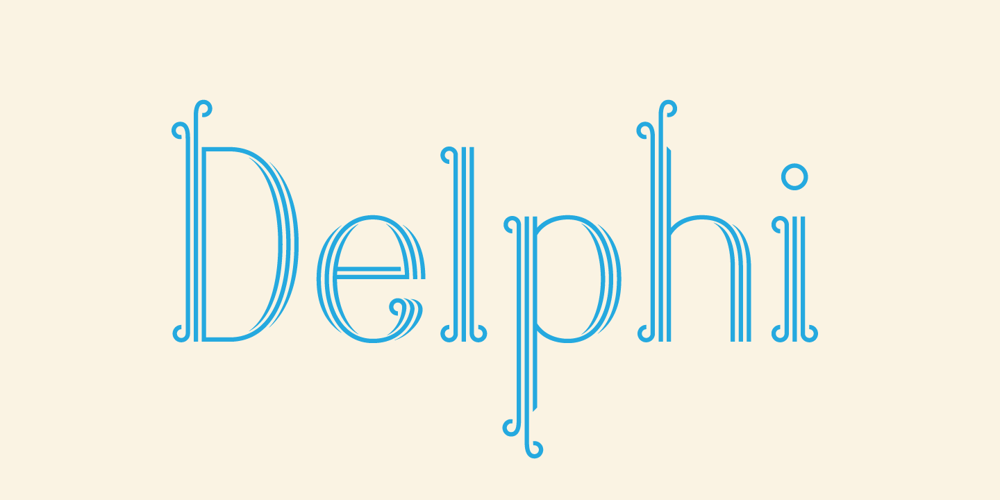
Delphi Font Family was designed by Neil Summerour, Lily Feinberg and published by Positype. Delphi contains 4 styles and family package options. Delphi grew from a logotype Lily Feinberg produced using Greek-column-inspired letterforms. As that concept expanded to include more and more letters, the typeface had its beginnings. Intertwined, kinetic, and deliberate, Delphi carves itself onto the page and screen, encouraging variation and experimentation. The letterforms’ unique construction and predispostion for experimentation inspired two varying sets: Delphi Dio, comprised of two-line strokes, and Delphi Tria, built of both 2- and 3-line strokes. With a design as elaborate, yet tightly tuned as this, the desire to add more and more was irresistible—you’ll see a number of stylistic, swash, and titling alternates (and even more hidden away in further stylistic sets). Because Dio and Tria could only hold so much, alternate cuts were produced to better organize your options: the Delphi Alt fonts feature certain letter styles and stylistic alternate sets distinct from those in Delphi. Delphi’s sophisticated, striking letterforms make it an ideal display face for use at large sizes, and with so many unique details and alternate letterforms, it’s simply fun to use.